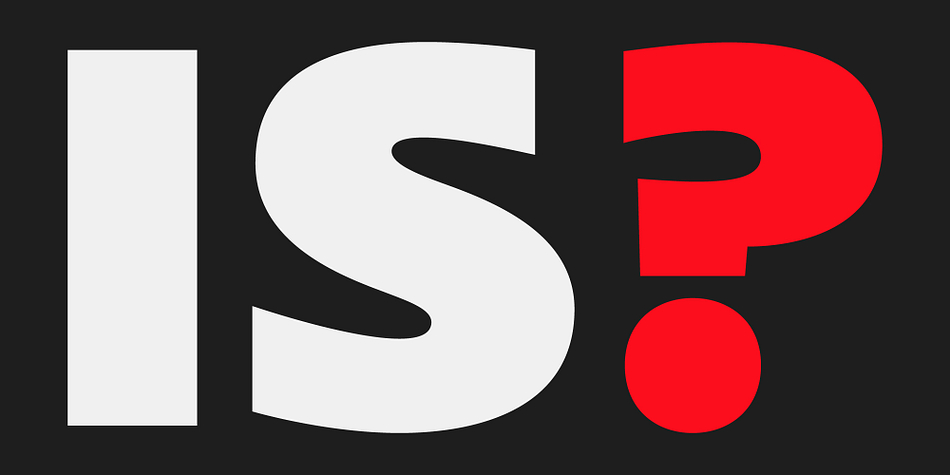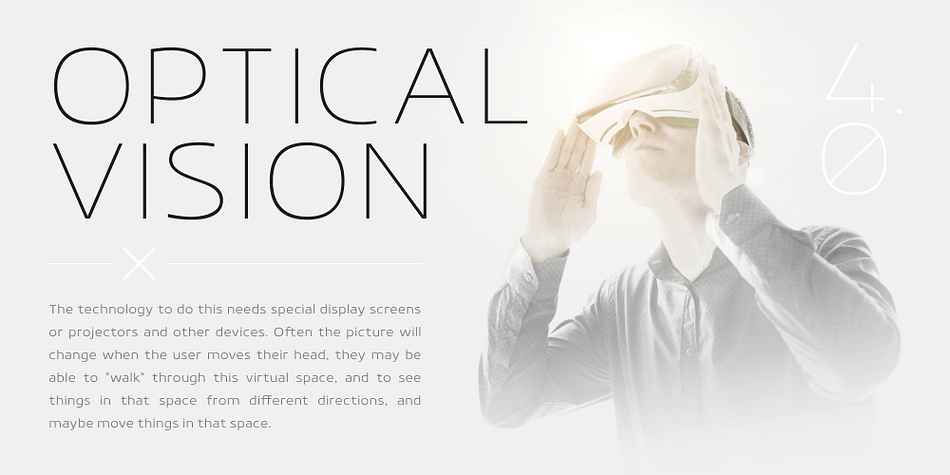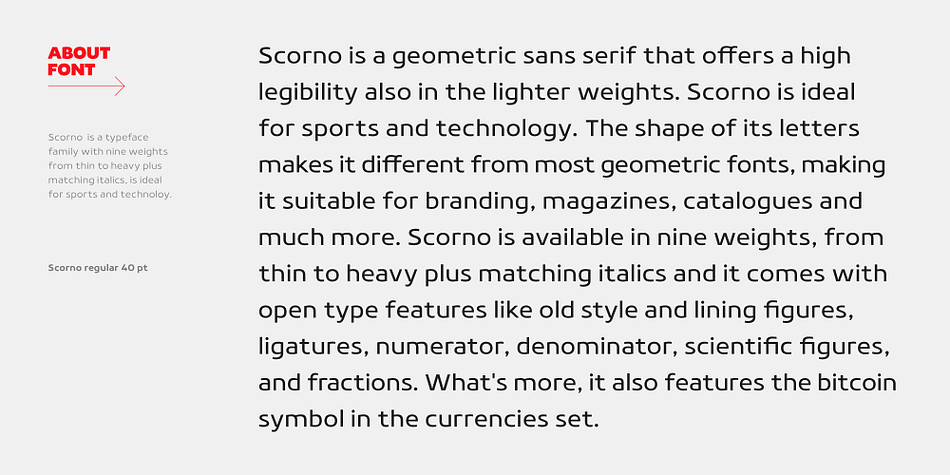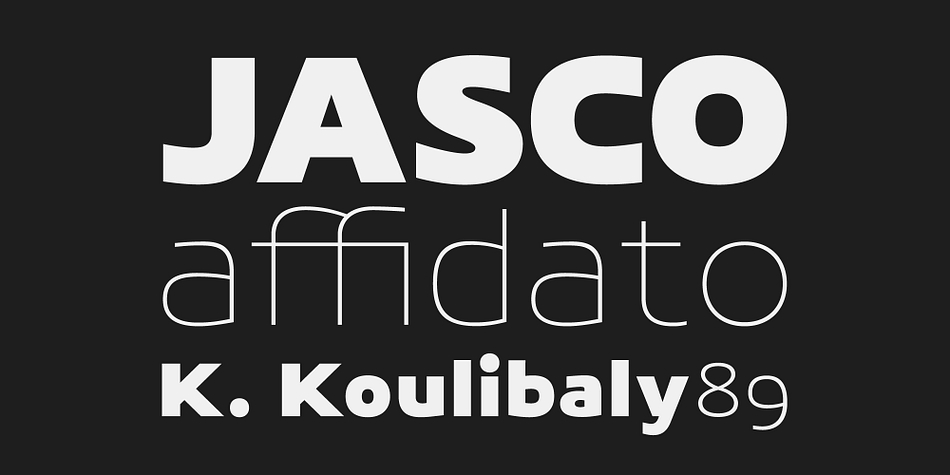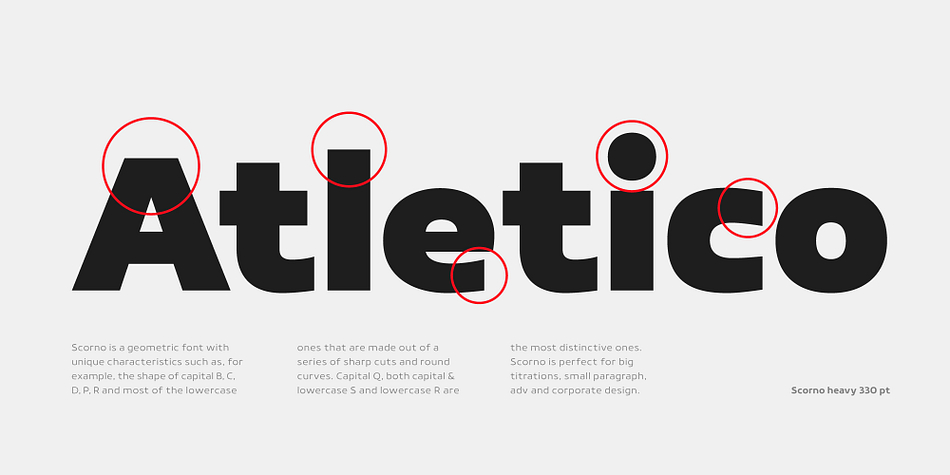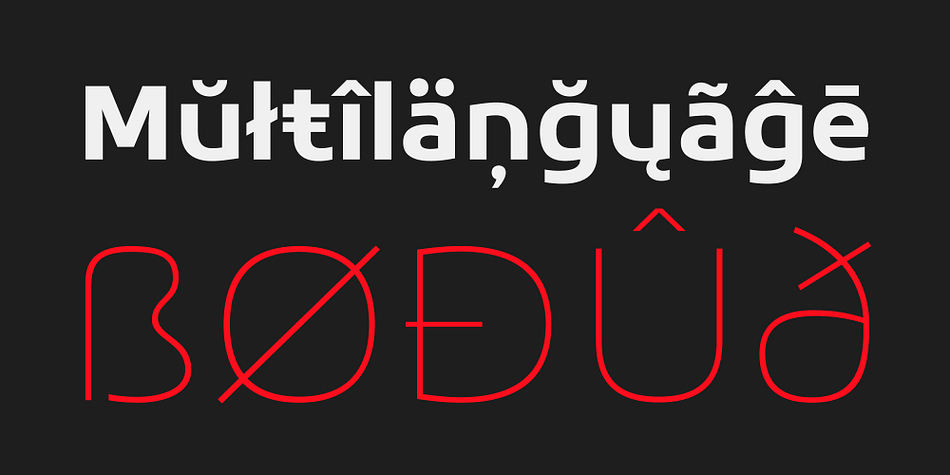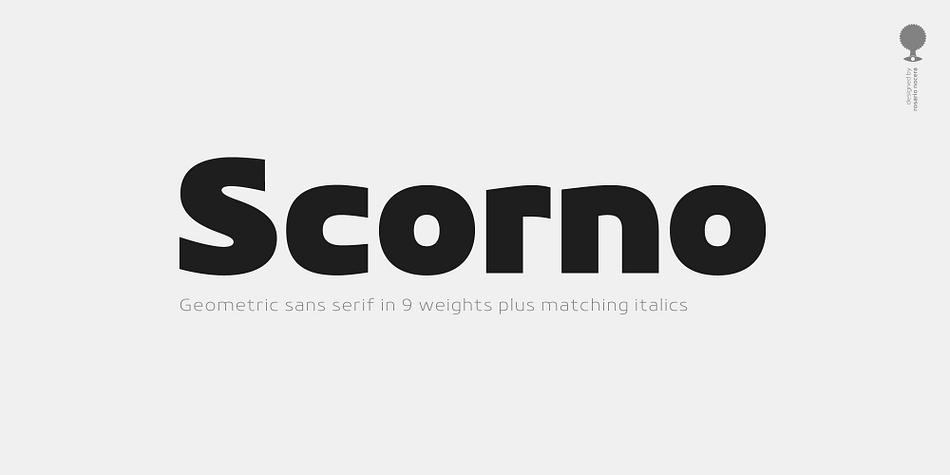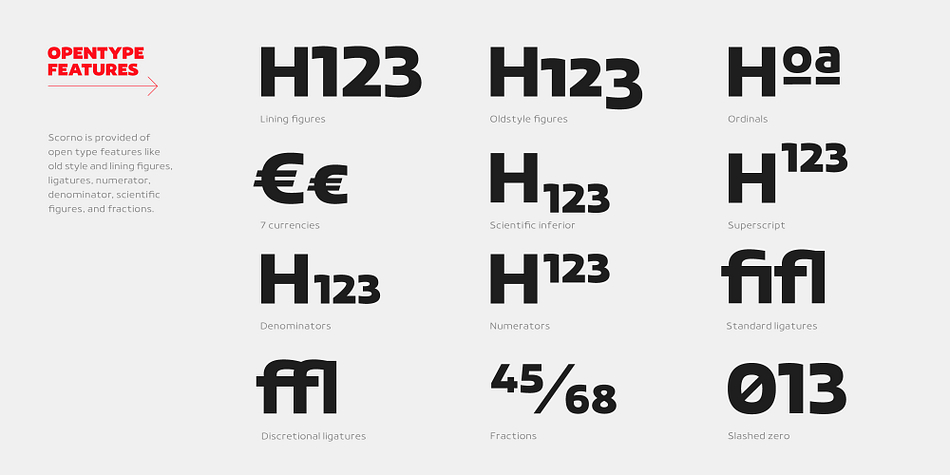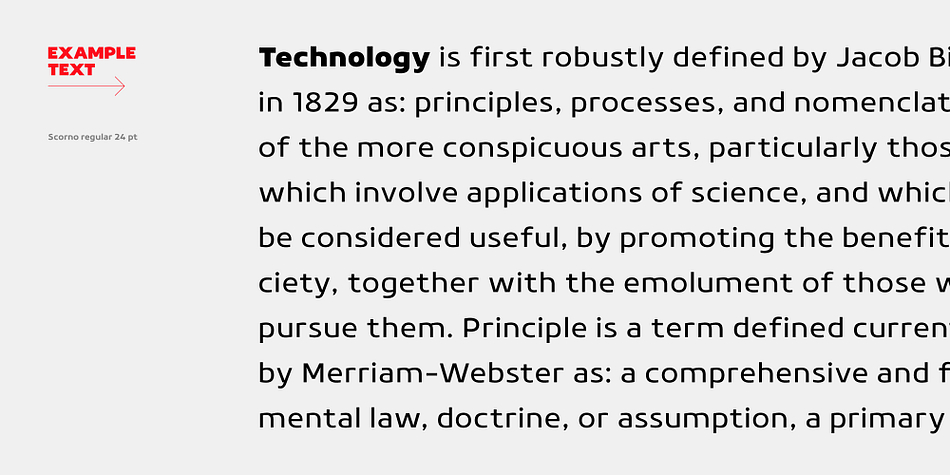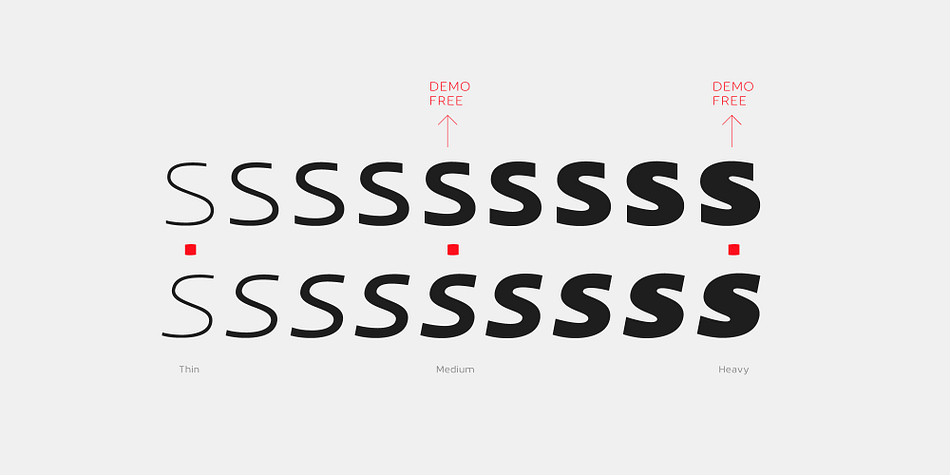
Designed by Rosario Nocera, Scorno is a sans serif font family. This typeface has eighteen styles and was published by Rosario Nocera.
Scorno is a geometric sans serif that offers a high legibility also in the lighter weights. Scorno is ideal for sports and technology. The shape of its letters makes it different from most geometric fonts, making it suitable for branding, magazines, catalogues and much more. Scorno is available in nine weights, from thin to heavy plus matching italics and it comes with open type features like old style and lining figures, ligatures, numerator, denominator, scientific figures, and fractions. What’s more, it also features the bitcoin symbol in the currencies set.